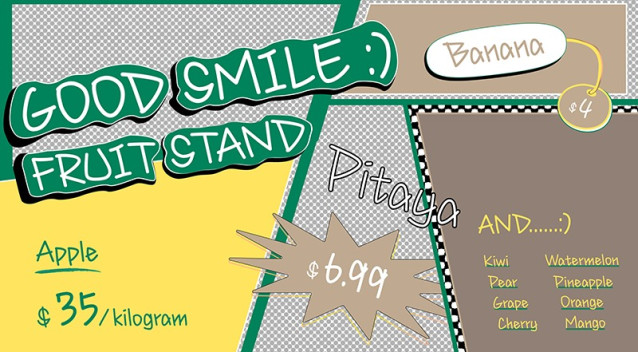
HF Migraffi Font
HF Migraffi Font a sweet and friendly handwritten font. Cute and fun, this font is ideal for writing wedding invitations, cards, or any other design that might need a fun touch!